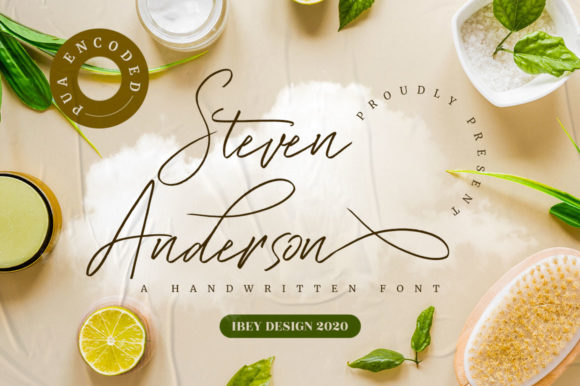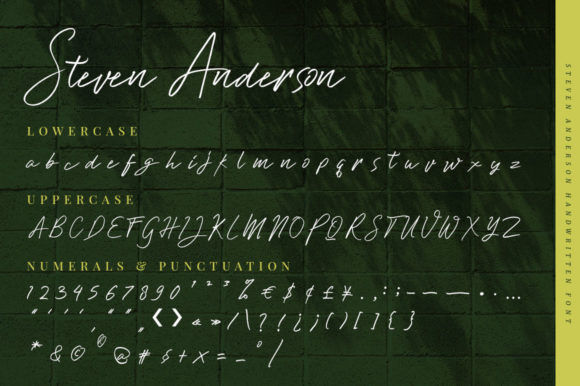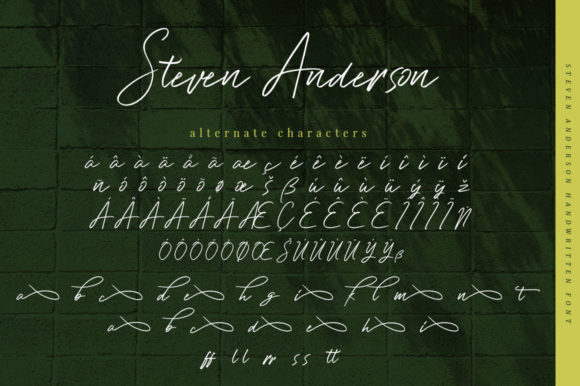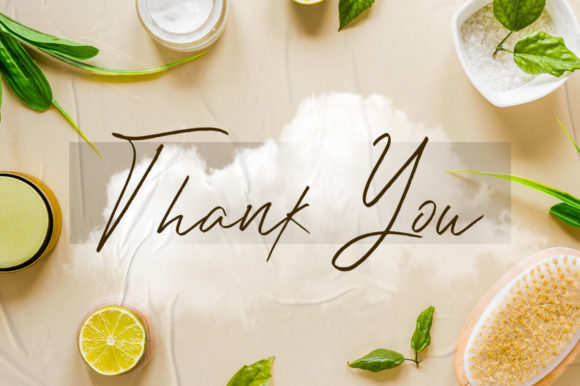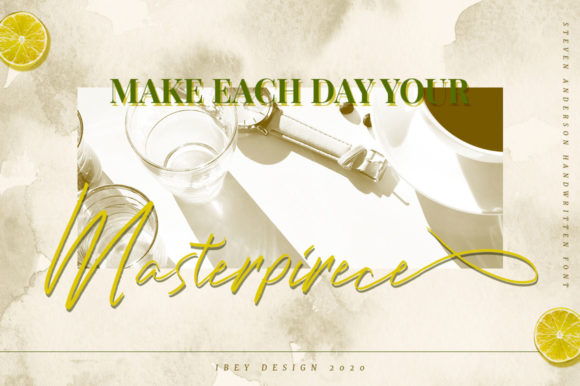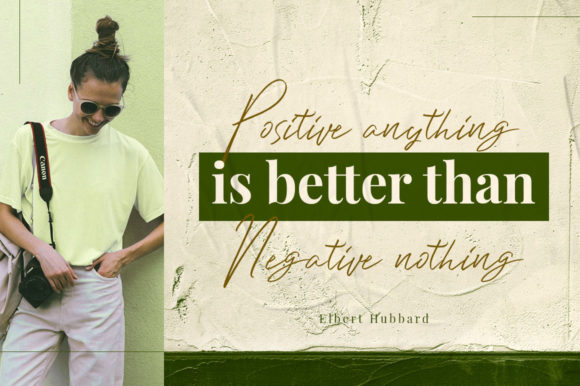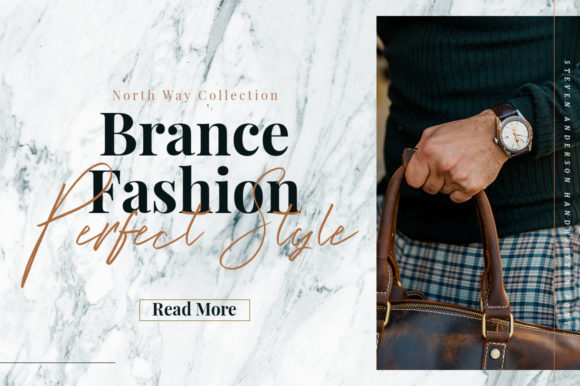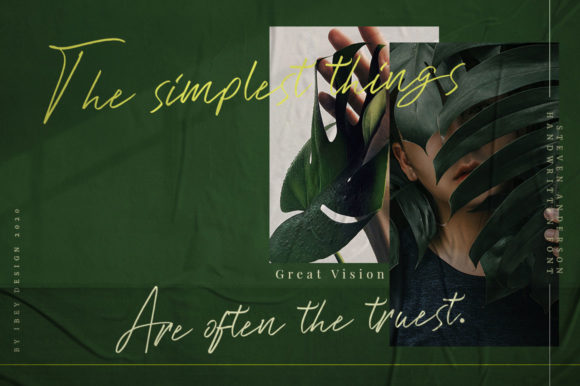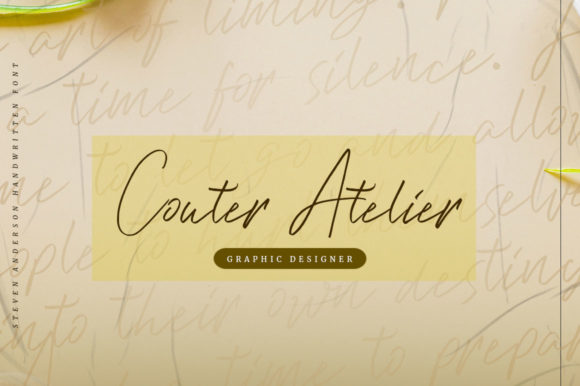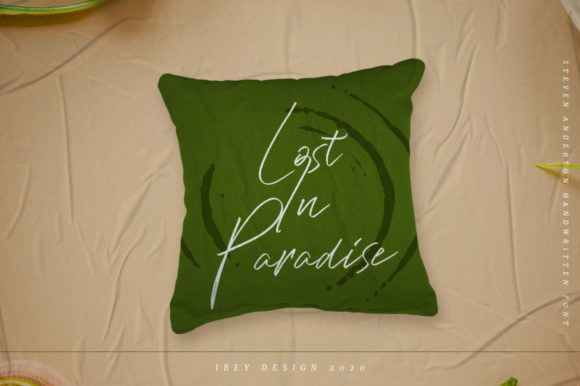
Steven Anderson Font
About Steven Anderson Font
Steven Anderson is a modern and unique handwritten script font. It will add a luxurious touch to any crafting project.